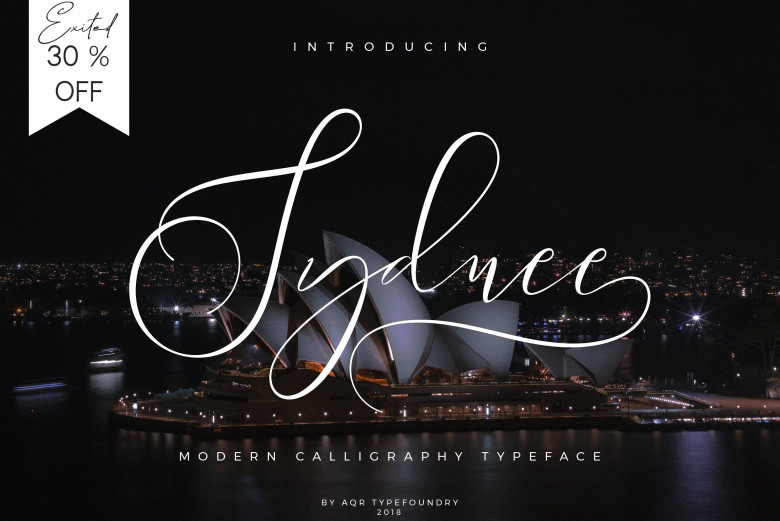
Sydnee Script Font
A modern calligraphy typeface, designed and shared by AQR Typefoundry. Introducing Sydnee Font. Sydnee Fonts made with love, this font is very good for weddings, birthdays, cosmetic products, fashion, and other designs you want. Sydnee Script Fonts has more than 600 + + of glyph, and has 17 stylistic sets that make you very wide choice your design.